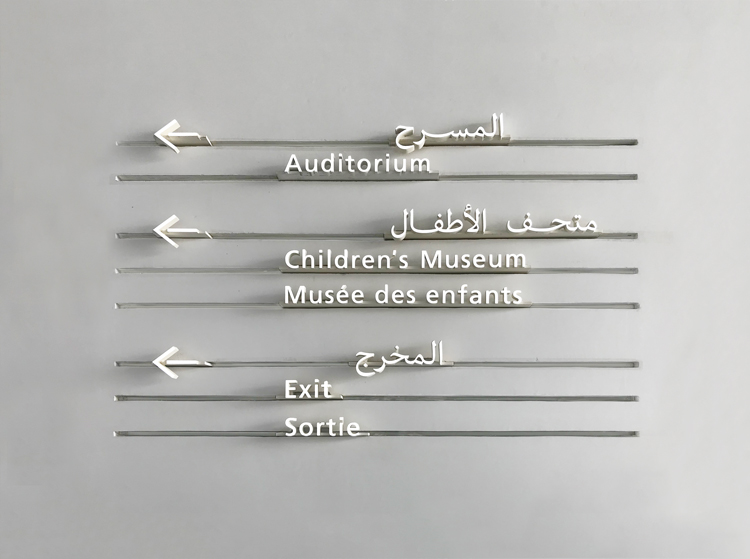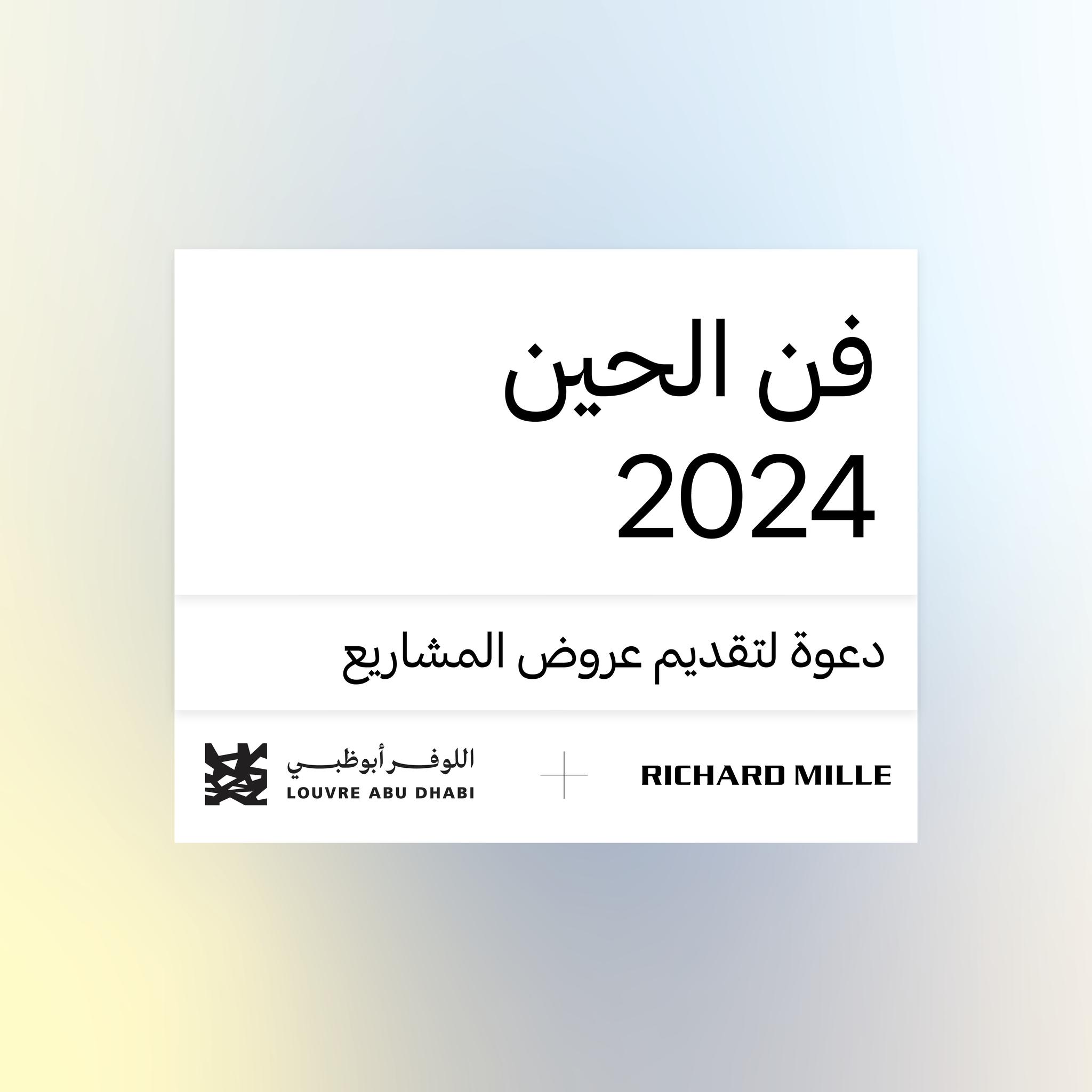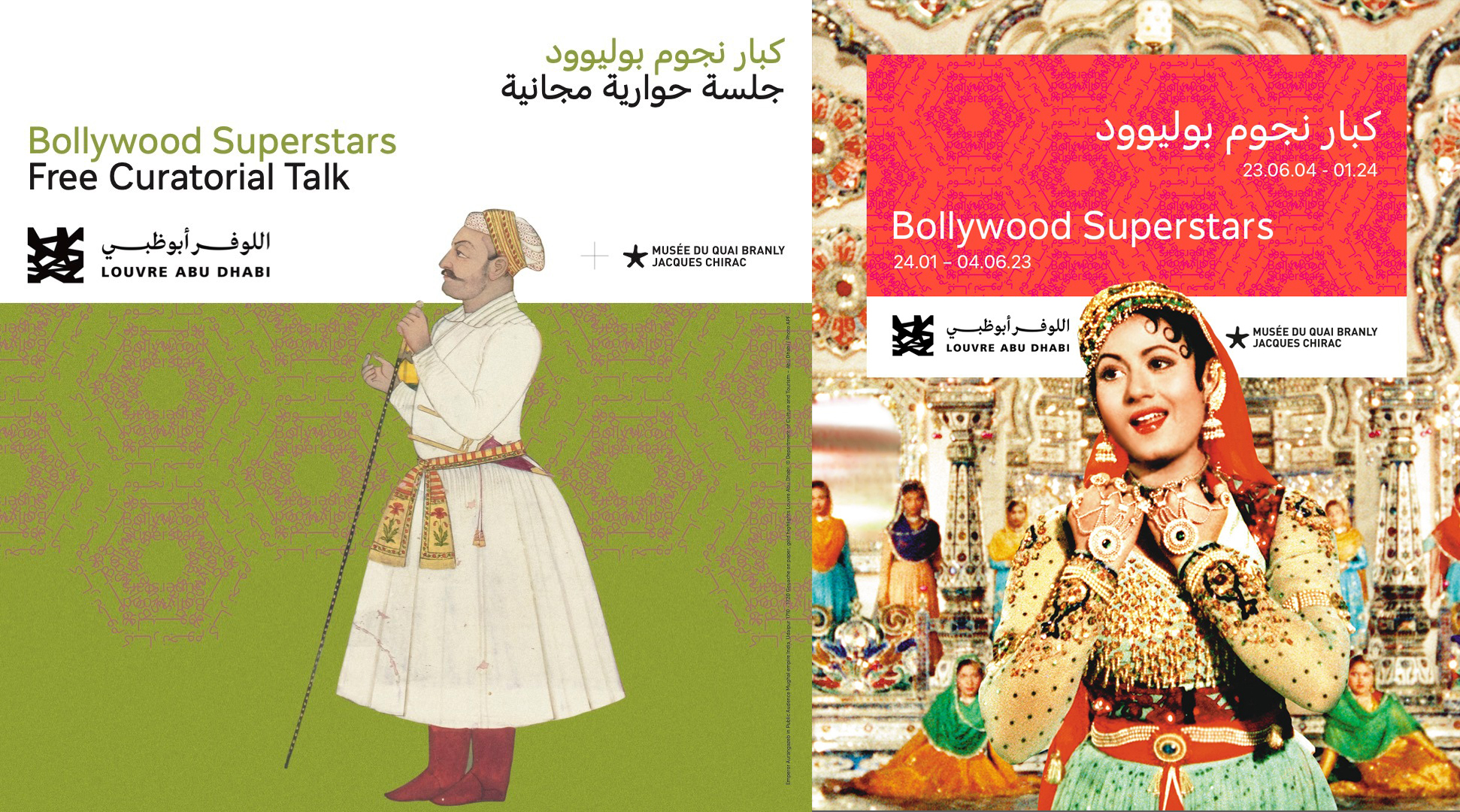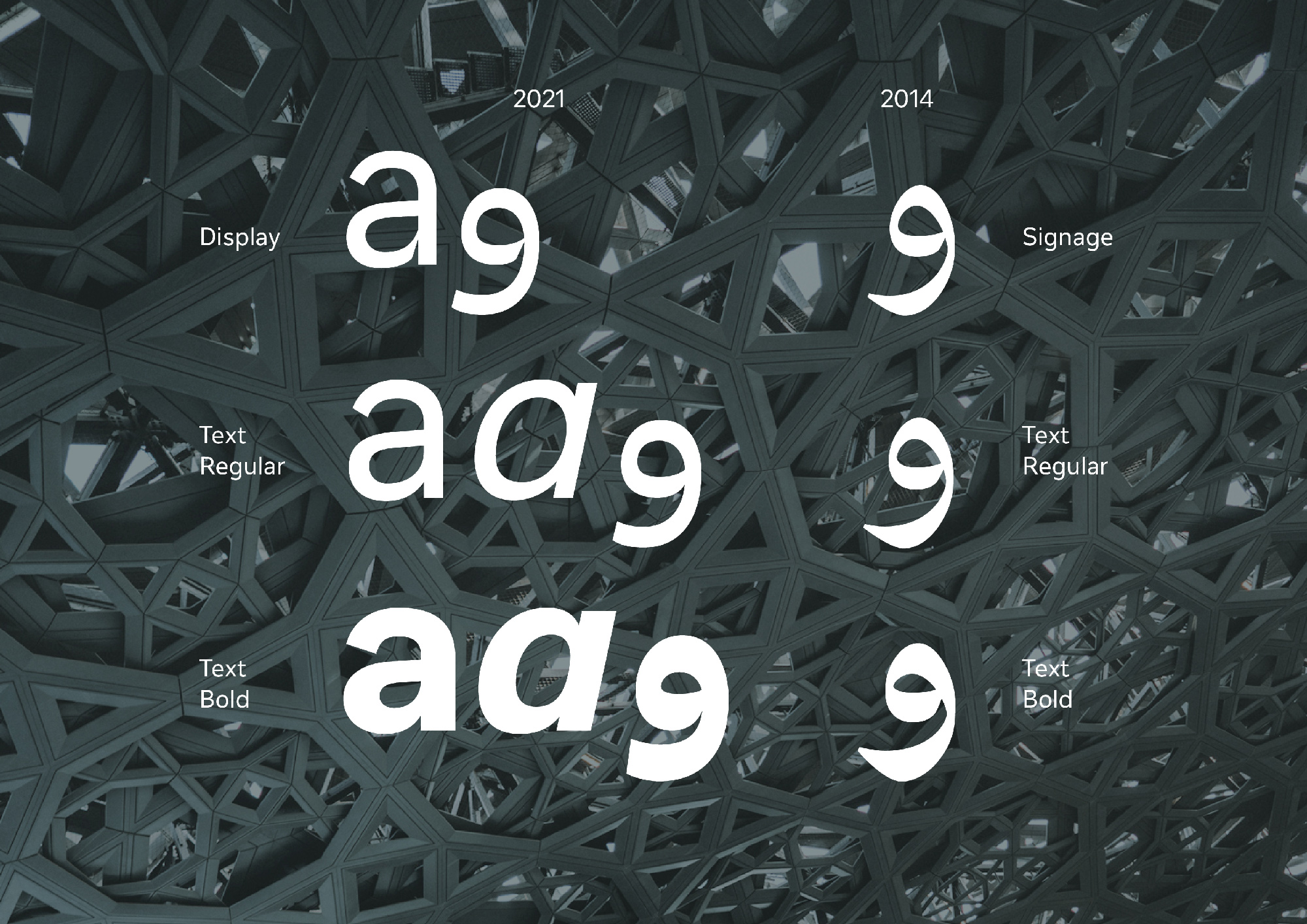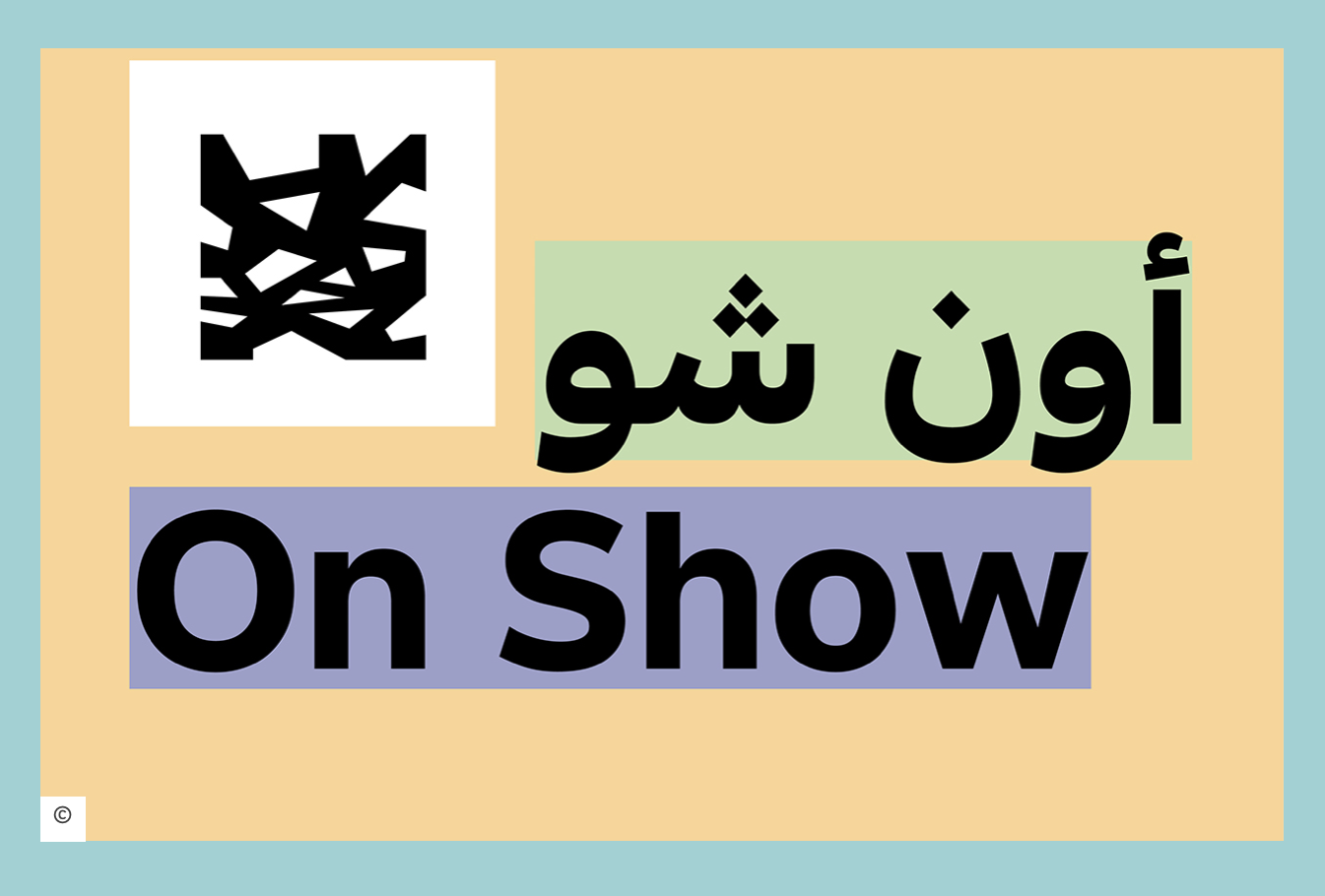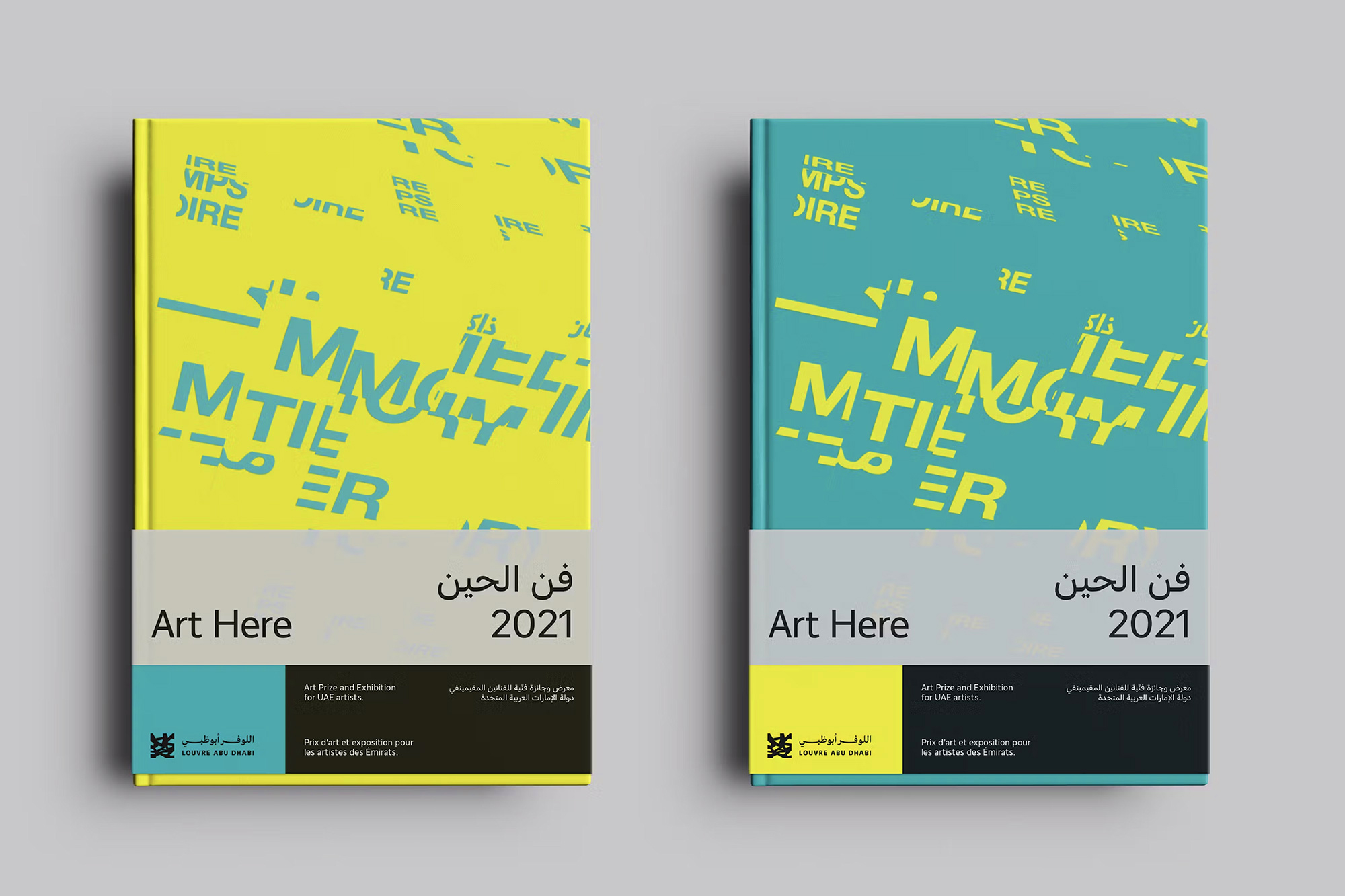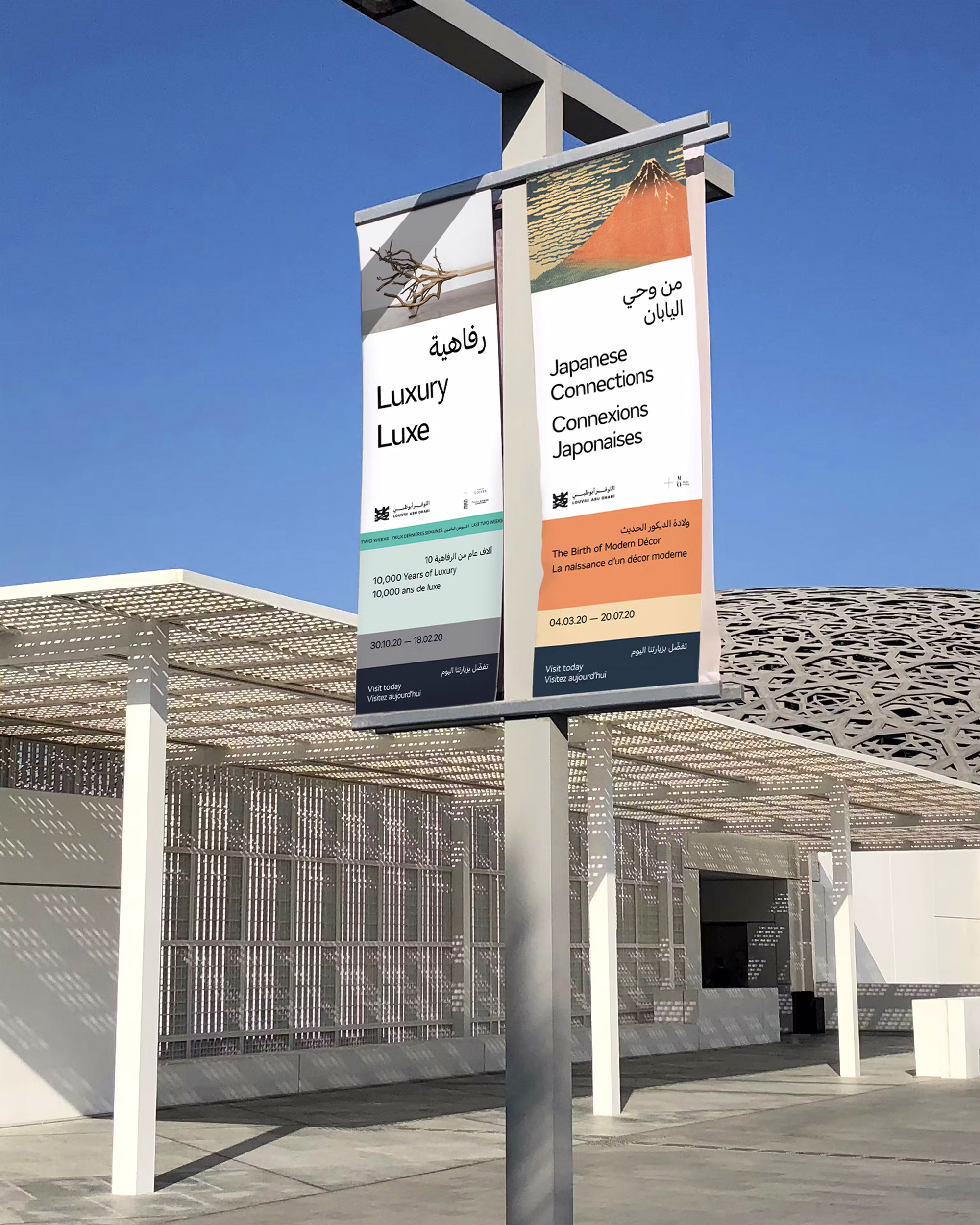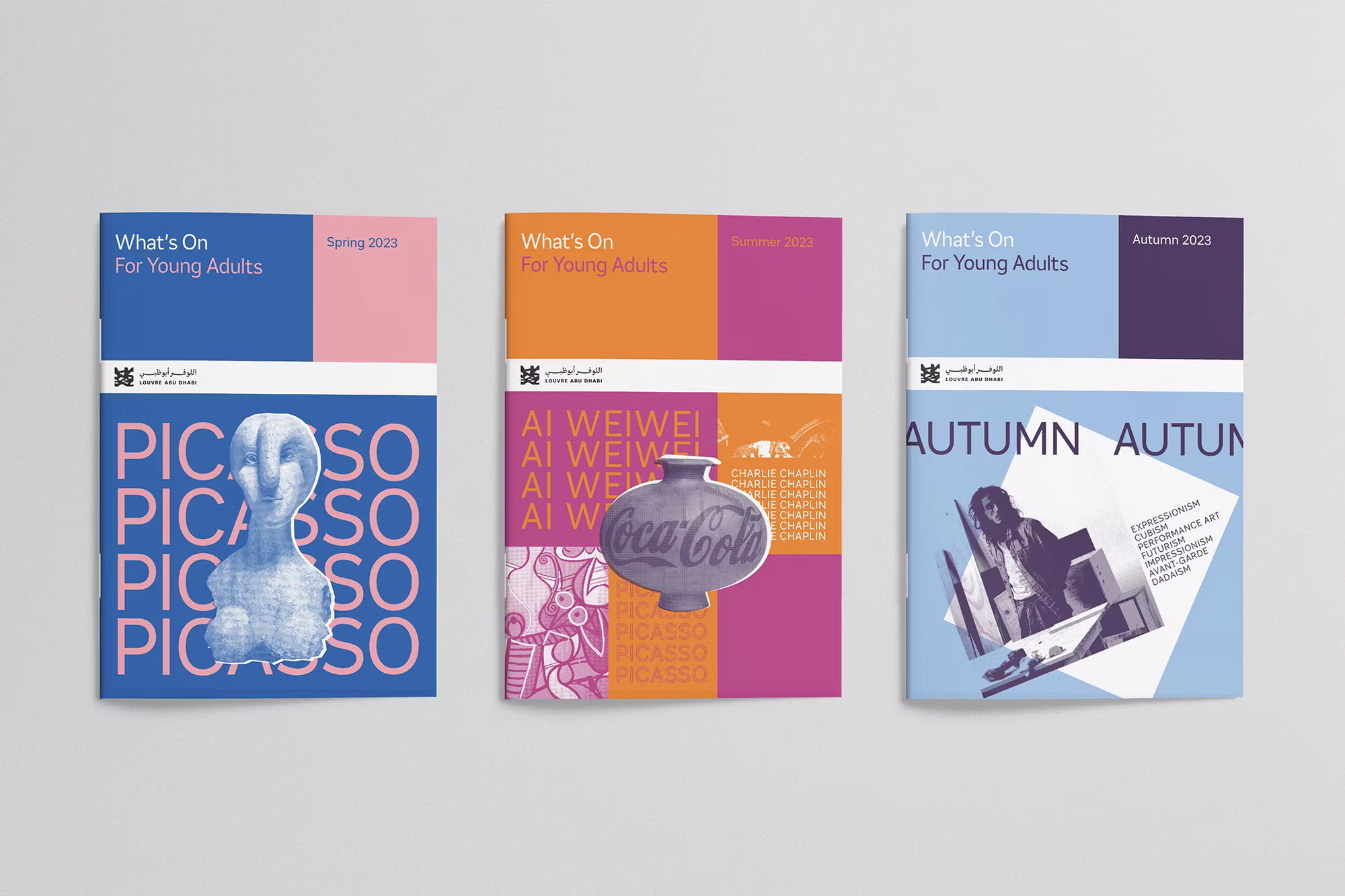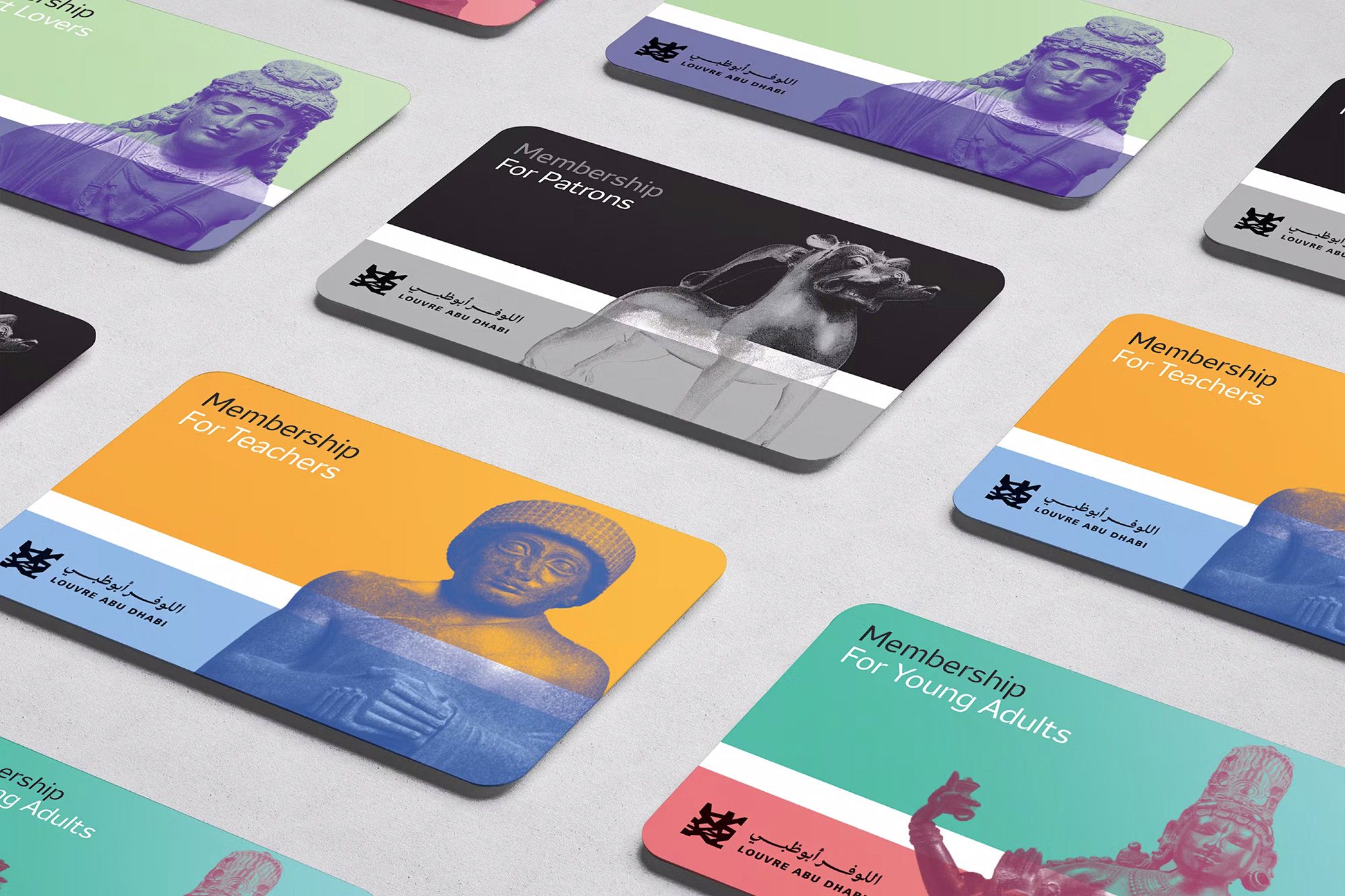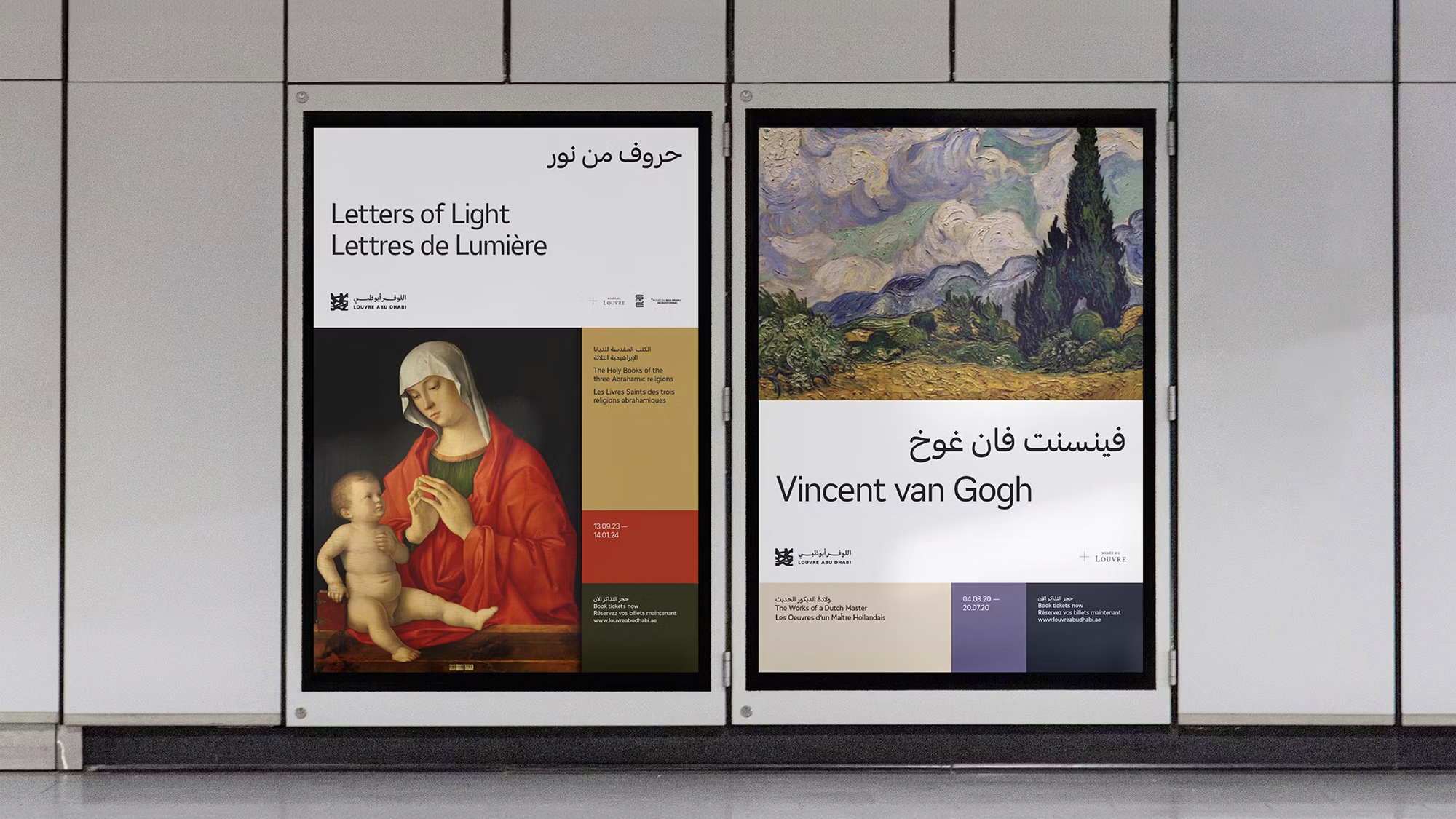
A custom typeface for the Louvre Abu Dhabi Part 2.
It is not often that you get the opportunity to design two typefaces for the same institution within a ten-year timeframe. Back in 2013, before the inception of TPTQ Arabic, our founding partner Kristyan Sarkis was asked to create a custom Arabic typeface for the Louvre Abu Dhabi museum. Kristyan worked with Philippe Apeloig, Hala Wardé, Jean Nouvel and their teams to develop an innovative, high contrast typeface that complemented the distinct architecture and identity of the museum. It included an uncommon feature at the time: the organic extension of the letter connections (or in Arabic Madd).
The LAD Arabic typeface designed in 2013 applied in the museum's signage showcasing the organic Madda feature.
Seven years later, when the museum decided to update their visual identity, there was a need for a new typeface, this time in Arabic and Latin. It was a full circle moment for us to be asked to develop the new typeface.
Working with Wiedemann Lampe and the LAD design & marketing team this time around, the project started with defining the relationship between the old and the new typeface as well as the one between the Arabic and Latin script.
Different pairings of construction and contrast
Multiple questions arose:
- Will the new typeface replace the previous one?
- What kind of pairing effect are we considering? What combination of Serif/Sans (Latin) and High Contrast/Low Contrast (Arabic) better represents the vision of the museum?
- Will the new Arabic typeface be a redesign of the previous one or will it be a completely new design?
Due to the success of the first typeface and the parameters of the new identity, it was ultimately decided that the new typeface would be an altogether new design for Arabic and a constructed grotesque Sans serif for Latin with the aim to complement the previous one rather than replace it.
And so, we set out to design a new typeface in Arabic and Latin in three upright cuts Display, Text Regular and Text Bold, and two italic text cuts for Latin.
While the new Arabic is seemingly completely unrelated to the previous ones, it does take some of its cues from the latter; most importantly they share similar letter widths, overall stroke width and curvature in the connections. The new typeface is also built on the same fluid structure as the previous one, however with larger, more rounded and geometric counterforms, it decidedly departs into a more constructed and less humanistic realm, in line with the new identity and its Latin counterpart.
The Latin design is a classic highly functional grotesque Sans serif. The text cuts feature a large x-height, which improve the legibility in small sizes. It is also wider, and more loosely spaced, Generously proportioned, darker, wider, typical features of typefaces intended for small sizes to improve legibility. On the other hand, the Display cut, designed for short texts and headlines, is lighter, crisper, more compact and detailed, featuring strong incisions on the stroke connections reminiscent of the influence of the calligraphic pen.
The Louvre Abu Dhabi typeface was designed by Kristyan Sarkis (Arabic) and Peter Bilak (Latin). Maha Akl assisted in the production of the Arabic counterpart. The fonts are now alive and well, and being used across all marketing and communication platforms of the museum.